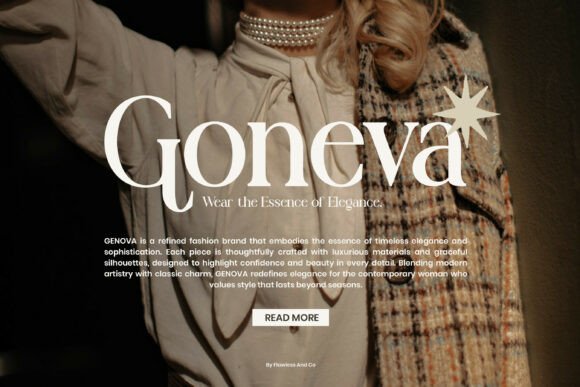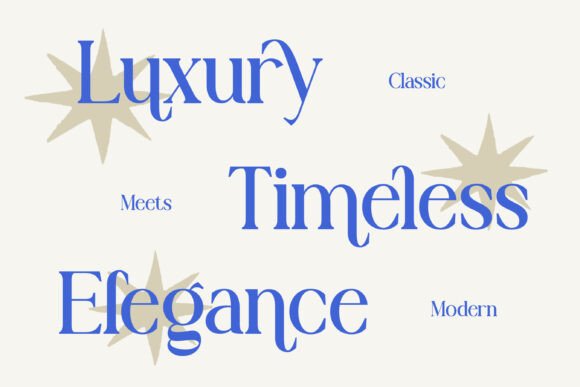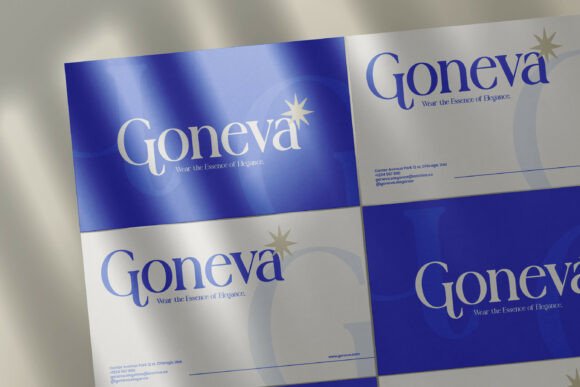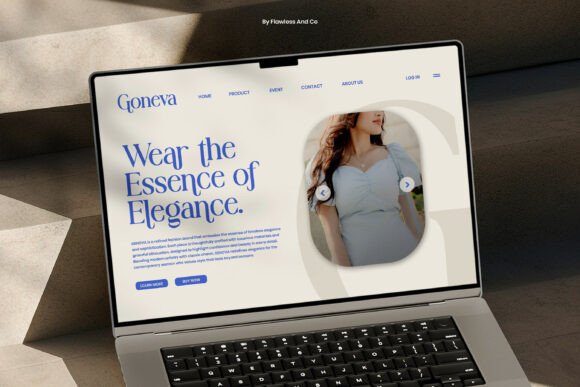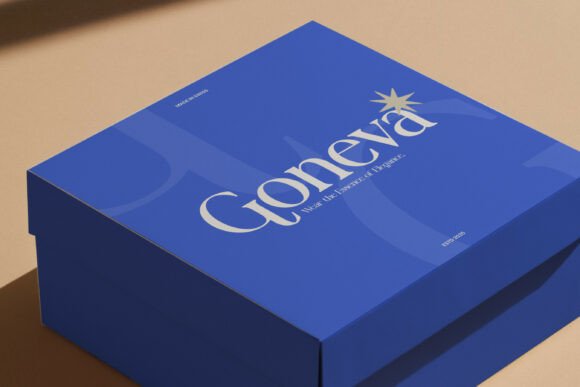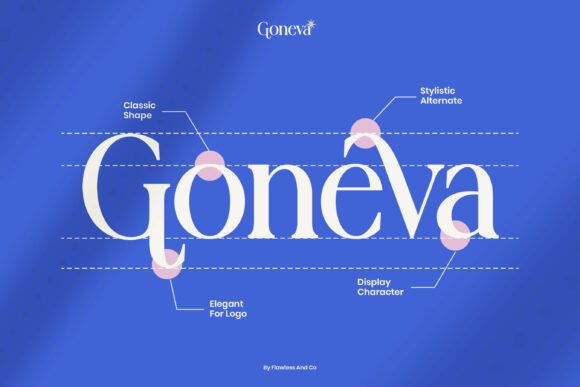
Goneva Font: Elevate Your Designs with Timeless Sophistication
In the world of typography, few fonts manage to strike a balance between classic elegance and modern simplicity. Goneva Font is one such exceptional typeface that seamlessly blends timeless sophistication with a clean, contemporary touch. Designed to make a lasting impression, Goneva is perfect for designers and crafters seeking to add a touch of refinement and elegance to their projects.
The Essence of Goneva Font
Goneva is a classic modern serif font that exudes confidence and sophistication. Every curve and serif is thoughtfully crafted to create a graceful yet confident impression. The font’s design is characterized by its balanced and harmonious lines, making it an excellent choice for a wide range of design applications. Whether you’re working on a luxury brand identity, a high-end product packaging, or a refined editorial project, Goneva Font is sure to elevate your designs to new heights.
Key Features of Goneva Font
- Classic Modern Serif: Goneva’s serif design pays homage to traditional typography while incorporating modern elements for a fresh look.
- Timeless Sophistication: The font’s elegant curves and refined lines evoke a sense of luxury and sophistication.
- Clean and Contemporary: Goneva’s clean lines and minimalist approach ensure that the font remains versatile and adaptable to various design contexts.
- Confident and Refined: The font’s confident and refined appearance makes it perfect for designs that require a sense of authority and poise.
What Makes Goneva Font Stand Out?
In a sea of fonts, Goneva stands out for its unique blend of classic and modern elements. Here are a few reasons why Goneva Font is a cut above the rest:
- Attention to Detail: Every aspect of Goneva’s design has been meticulously crafted to ensure that the font is both aesthetically pleasing and highly legible.
- Versatility: Goneva’s clean and modern design makes it suitable for a wide range of applications, from luxury branding to editorial design.
- Elegance and Refinement: The font’s classic serif design and sophisticated lines make it perfect for designs that require a touch of elegance and refinement.
How to Use Goneva Font in Your Designs
Goneva Font is an incredibly versatile typeface that can be used in various design contexts. Here are a few ideas to get you started:
- Luxury Branding: Use Goneva to create a sophisticated brand identity that exudes luxury and refinement.
- Editorial Design: Goneva’s clean lines and elegant curves make it perfect for editorial projects, such as magazines, newspapers, and books.
- Product Packaging: Add a touch of elegance to your product packaging with Goneva’s refined and sophisticated design.
- Web Design: Use Goneva to create a clean and modern website that showcases your brand’s sophistication and elegance.
Goneva Font is a truly exceptional typeface that offers a unique blend of classic elegance and modern simplicity. With its thoughtful design, attention to detail, and versatility, Goneva is perfect for designers and crafters seeking to add a touch of refinement and sophistication to their projects. Whether you’re working on a luxury brand identity, editorial design, or product packaging, Goneva Font is sure to elevate your designs to new heights.